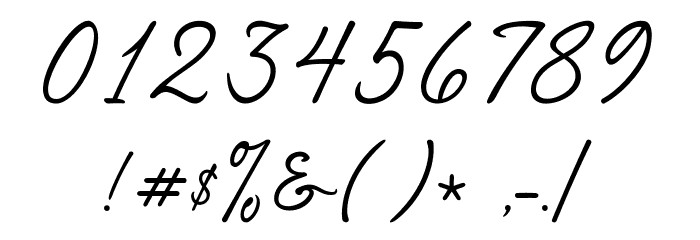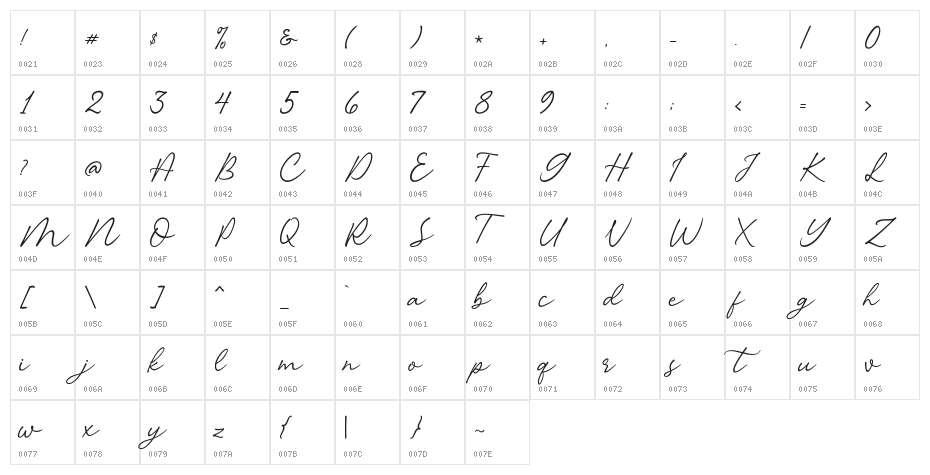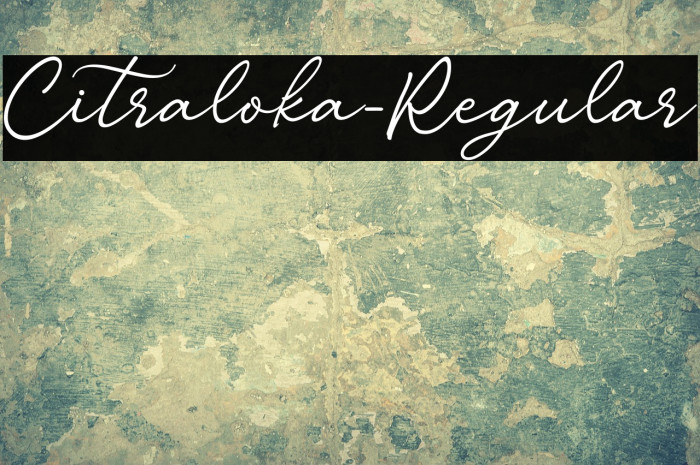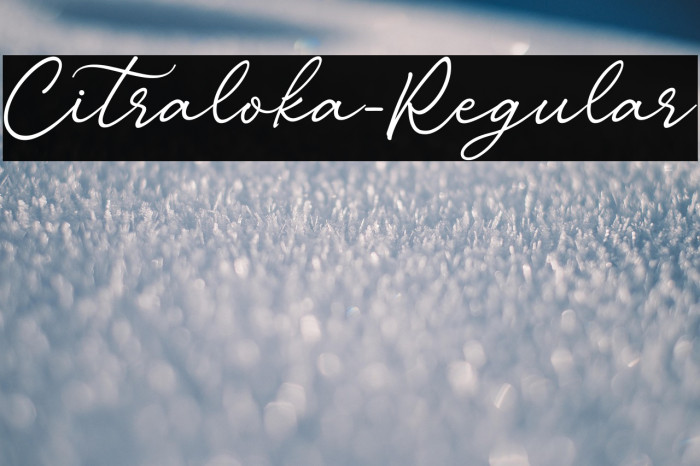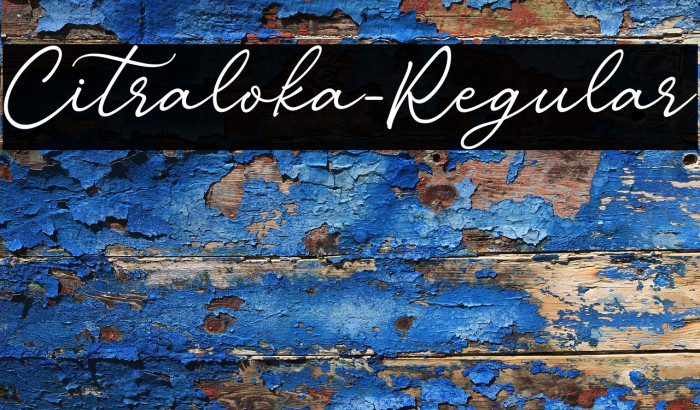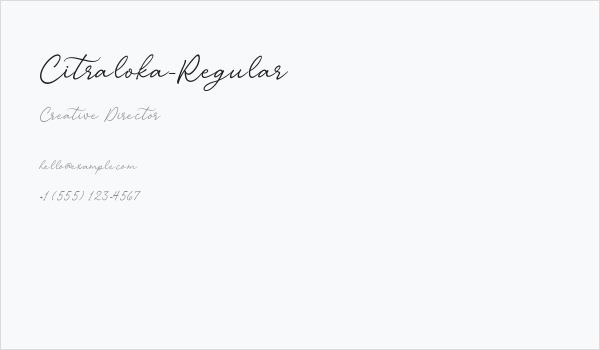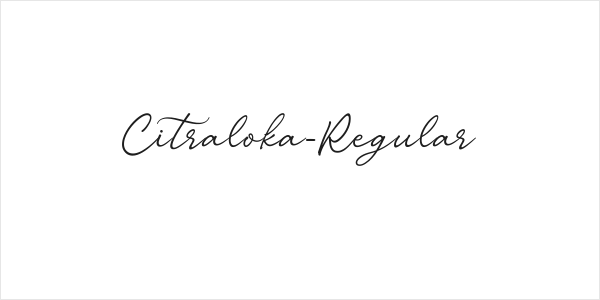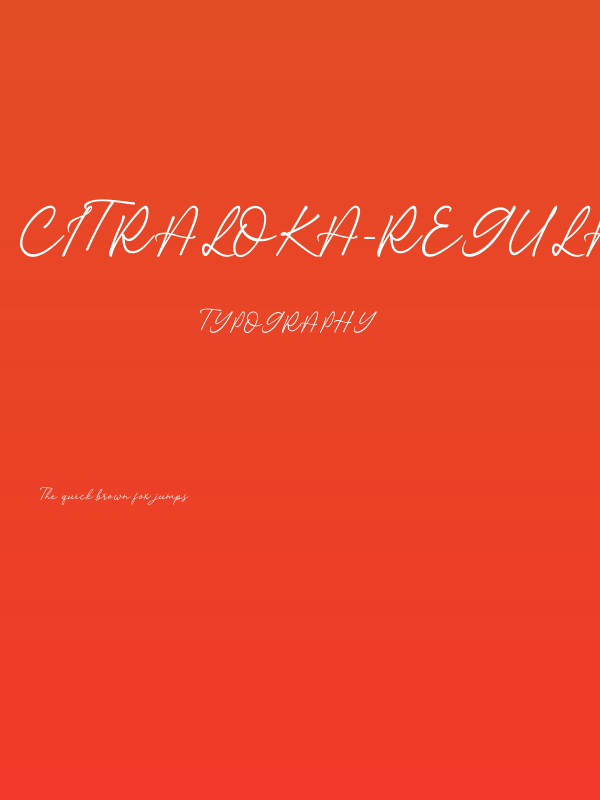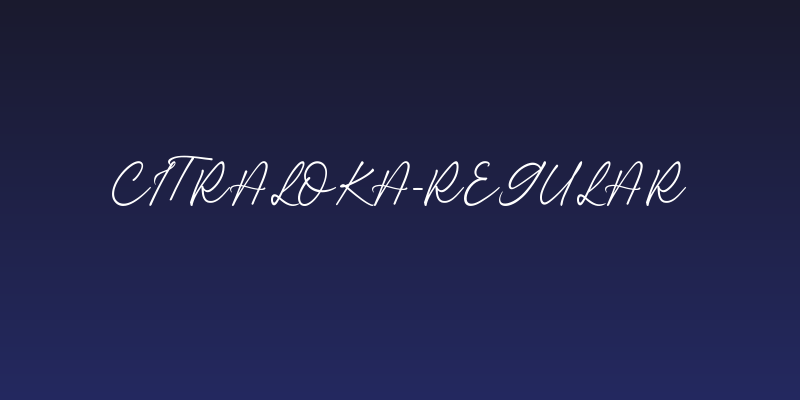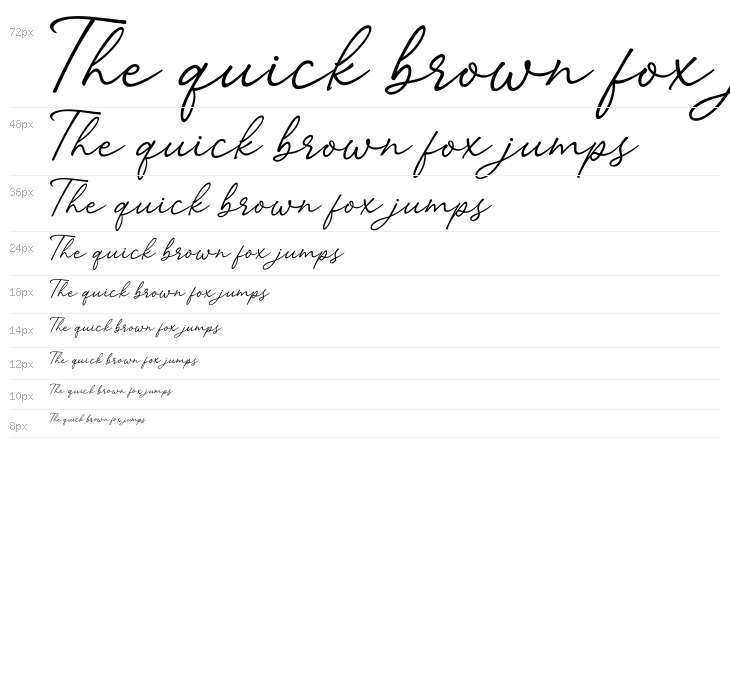
This font exudes a graceful and elegant handwritten style, characterized by its smooth, flowing lines and cursive script. Each letter is carefully crafted with a consistent stroke width, giving it a harmonious and balanced appearance. The uppercase letters are slightly more elaborate, with gentle curves and loops that add a touch of sophistication. The lowercase letters maintain a fluid connection, enhancing the overall script-like quality. Numbers and special characters are designed to complement the alphabet, maintaining the same fluidity and elegance. This font is perfect for projects that require a personal and artistic touch, such as invitations, greeting cards, or branding materials.
Overall StyleElegant
Use CaseLogos, Invitations, Artistic projects
Proposed ProjectsIdeal for wedding invitations, greeting cards, personal branding, and artistic projects.